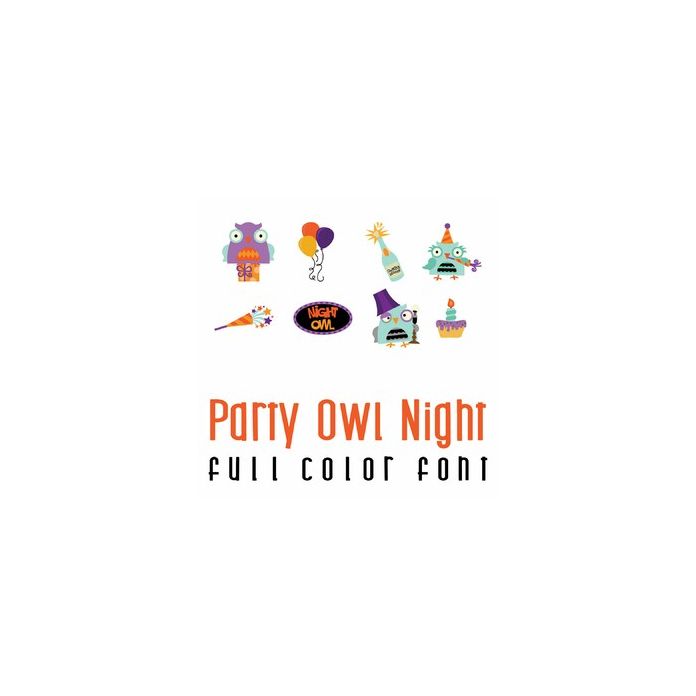
This fun full color doodlebat font features 26 party owls ready for a good time. Perfect for cards, crafts, gifts, decor, scrap book pages, planner stickers and more!